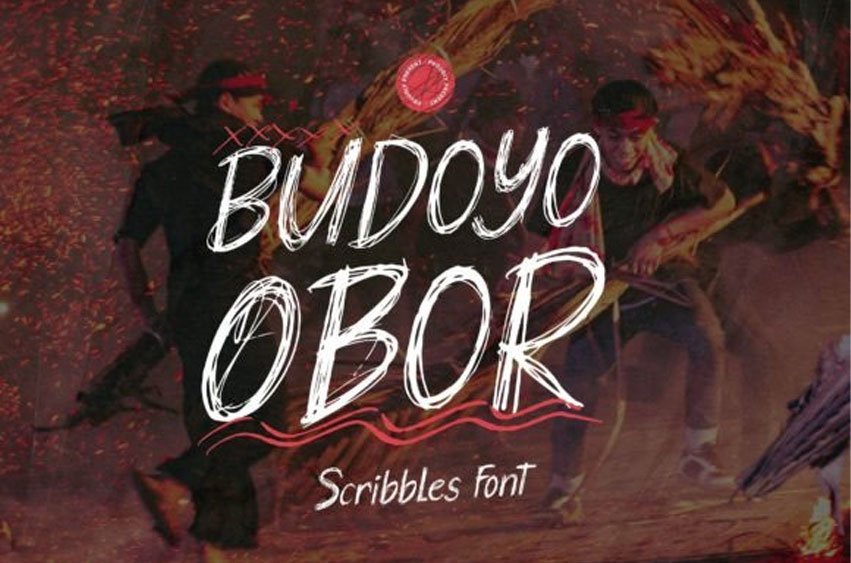
Budoyo Obor Font is a fun and playful handwritten font that looks like a casual scribble.
It’s perfect for adding a personal, creative touch to your designs.
Budoyo Obor Font is a fun and playful handwritten font that looks like a casual scribble.
It’s perfect for adding a personal, creative touch to your designs.